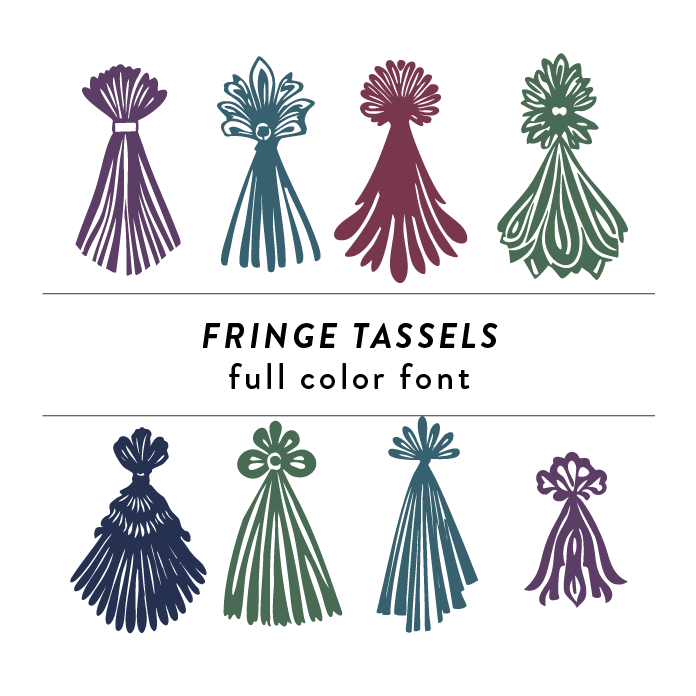
Fringe Tassels Full Color Font is a unique font design that combines crafty elements with straight line shapes and flourishes. The font features intricate tassel-like details that add a playful and whimsical touch to any project. Perfect for adding a fun and colorful flair to invitations, posters, and other creative designs. This font is a OTF craft font that will appear in color only when used with the silhouette software.